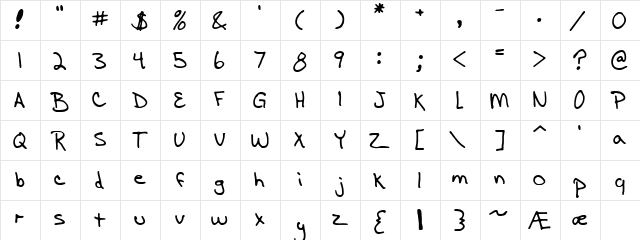
Ʈigma Scrawl (BRK) Regular
Design Context for Ʈigma Scrawl (BRK) Typeface
Ʈigma Scrawl (BRK) is a composed and adaptable typeface that performs quietly and consistently across a wide range of design contexts.